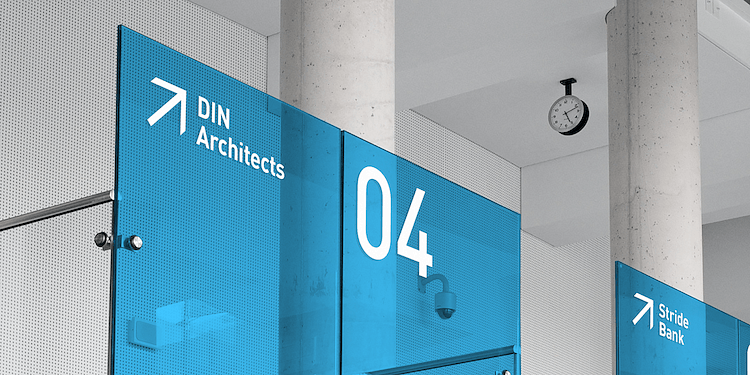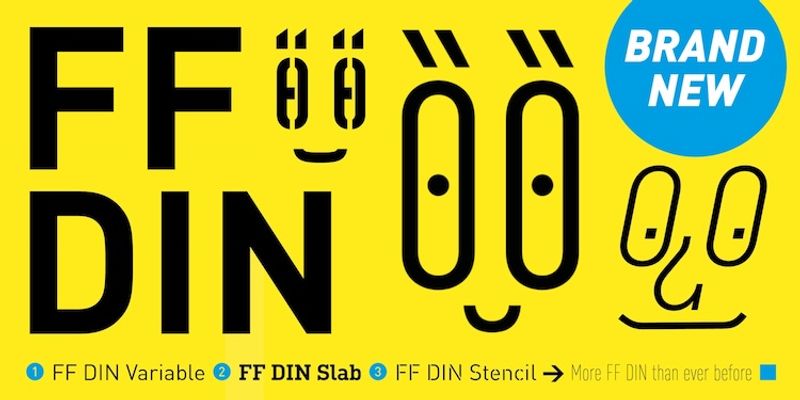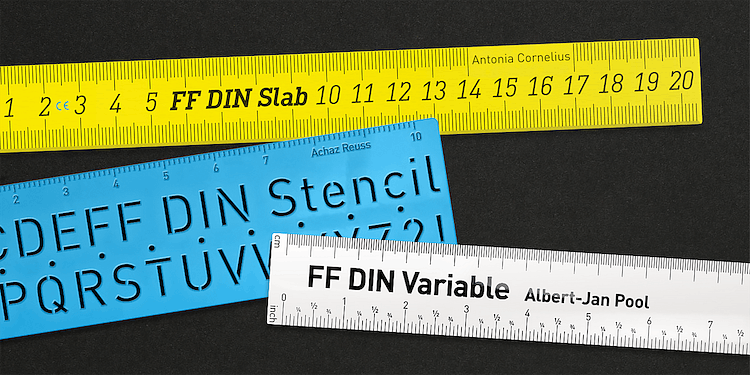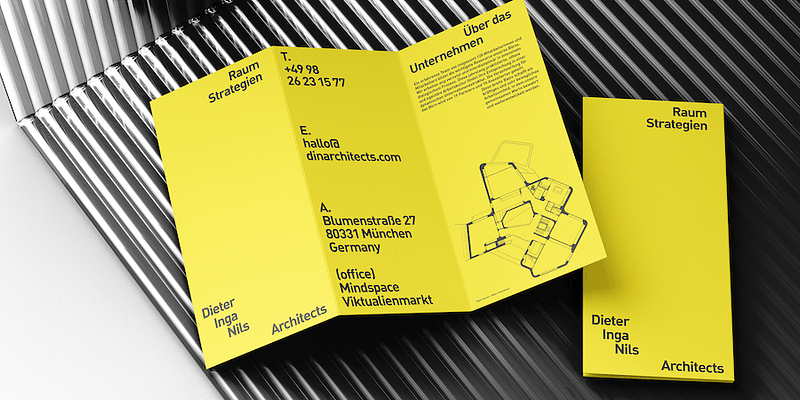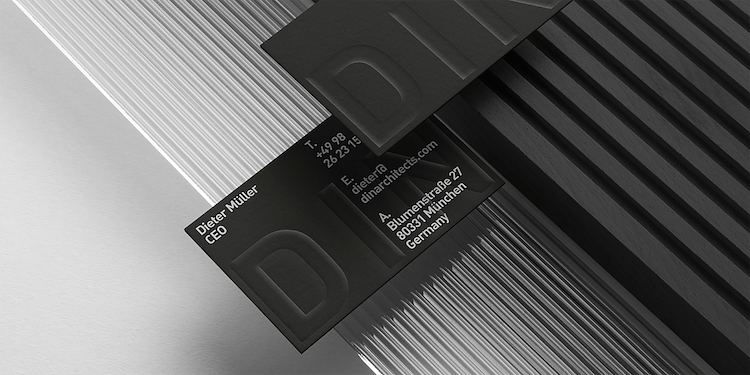
FF DIN: the famous, faithful and first revival of DIN 1451. FF DIN originates in the lettering models from the German standard DIN 1451, and is considered the perfect standard typeface due to methodical and engineered design. FF DIN Variable offers you more FF DIN than ever before. Pushing font technology to its limits, Variable fonts provide creatives a tool to dial in hyper specific variations which thrive in any design space. FF DIN Variable take bold steps in engineering, which the typefaces behaviour which brings in FF DIN’s technical look-and-feel into the smooth and almost organic world of Variable Fonts. Available in both upright and italic styles, there is a lot more FF DIN to discover with new era of type technology. FF DIN Italic is a sloped roman style, however it is optically corrected – slightly thinner, slightly narrower. As a result, FF DIN Italic stands out subtly. FF DIN Variable stays faithful to its parent’s DNA, the utmost care was taken to ensure that the new instances of FF DIN Variable remained consistent with all the well-known weights. Precision is the mantra of FF DIN, the FF DIN Variable is no exception to this design philosophy. Produce exquisitely fine-tuned typography and expressive animated headlines for any design. Infinite styles, intelligent, and powerful.